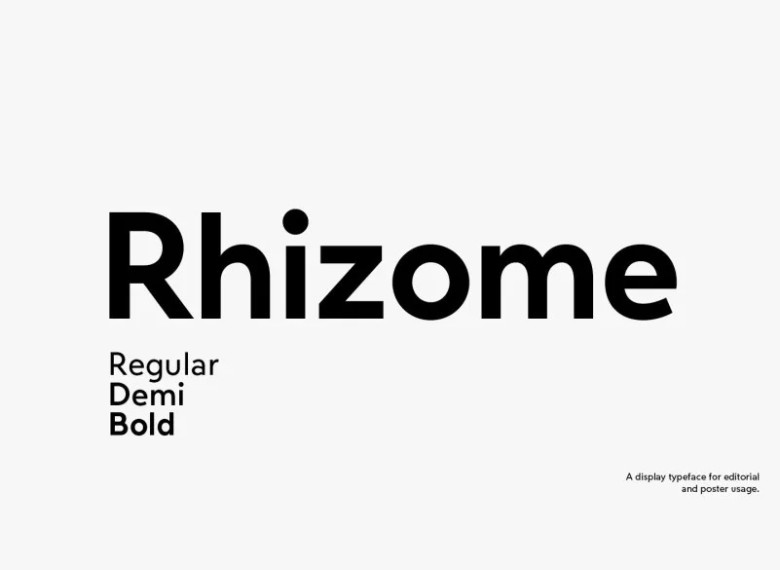
Rhizome Font
The Rhizome  typeface is a sans serif font family with a rounded take on geometric forms. It’s a mishmash of the historical and forward-thinking in early 20th-century typographic landscape.
A geometrically direct construction competes with classical proportions. In its letterforms from serif typefaces and designed by what seems like a wedge mold, it combines.
Rhizome Sans Serif Font Family